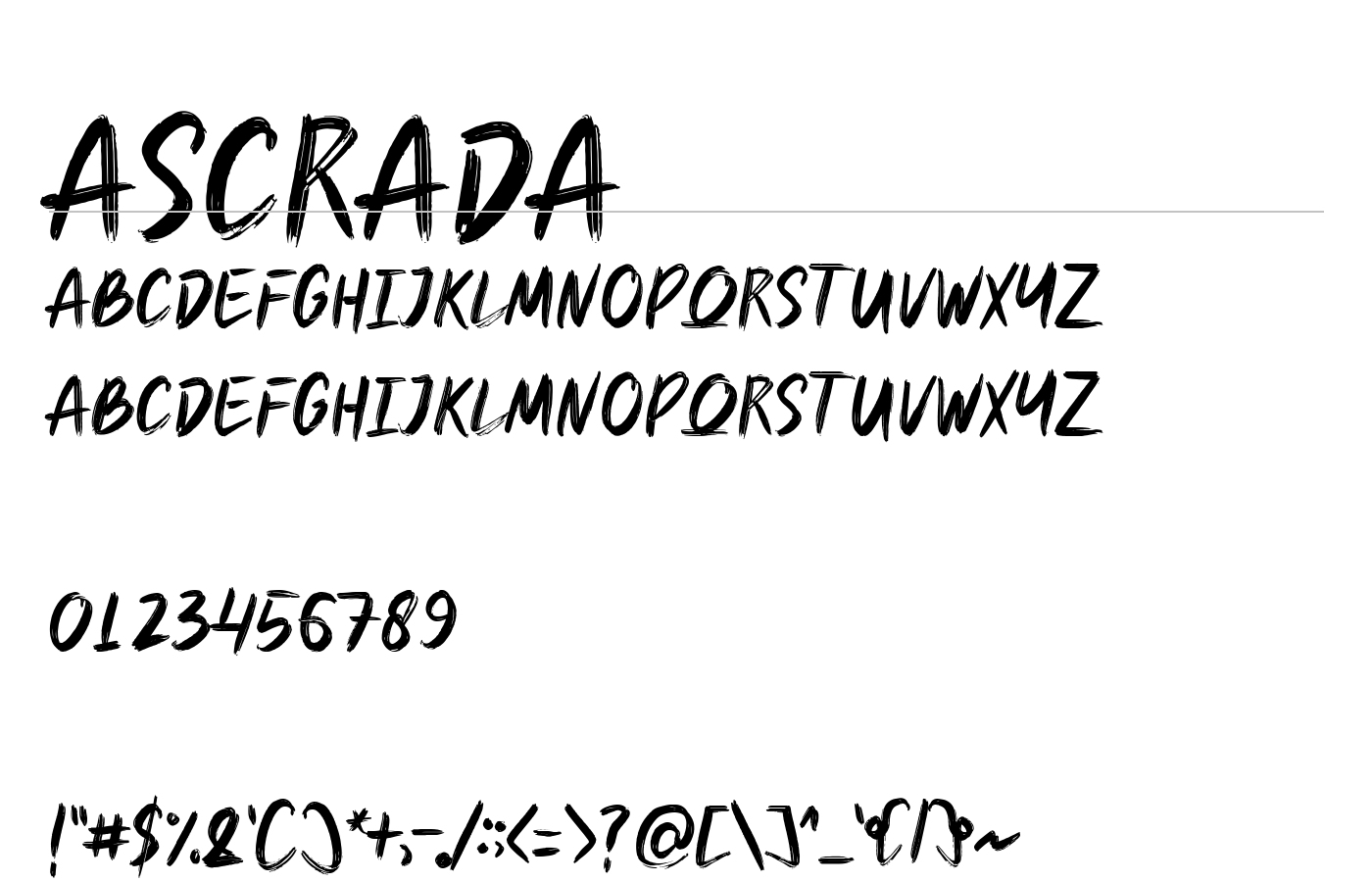
Ascrada is a bold, brush-style display font with a lively and dynamic hand-painted feel. Its rough, textured strokes and all-uppercase design convey energy and creativity, making it perfect for eye-catching headlines, logos, and artistic branding that want to express a casual yet impactful personality. This font works well in designs that seek a playful, expressive touch with a handcrafted, authentic vibe.
Ascrada Font
About Ascrada Font
| Font family | Ascrada Font |
| Designer | Muhammad Hisyam Rivai |